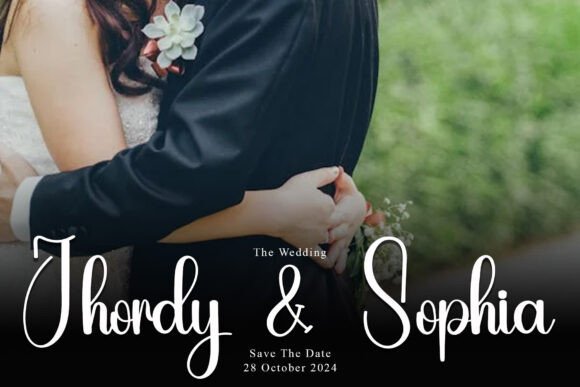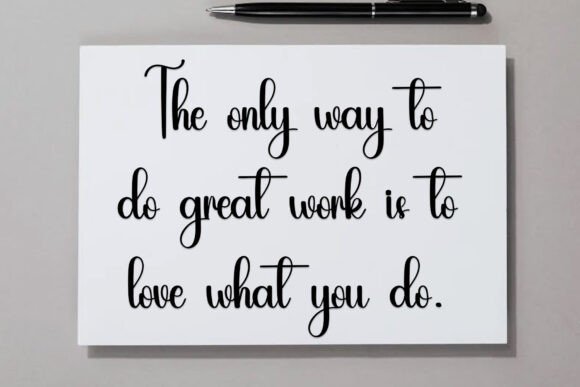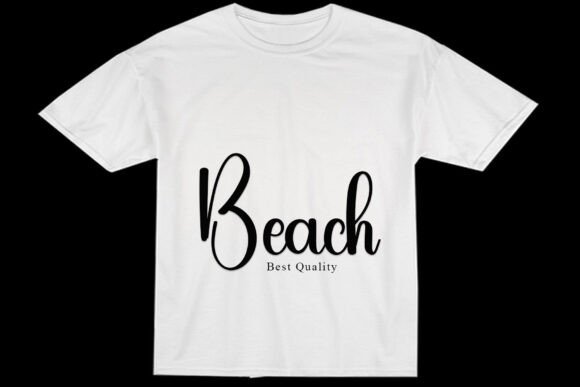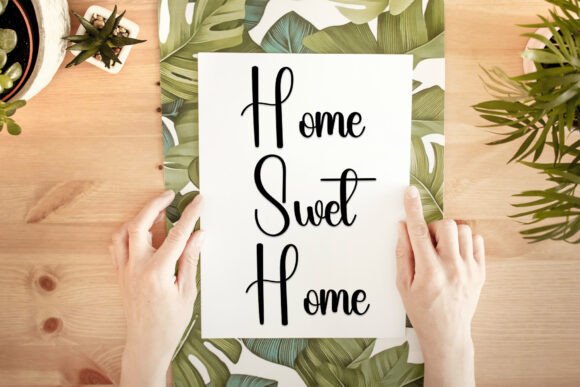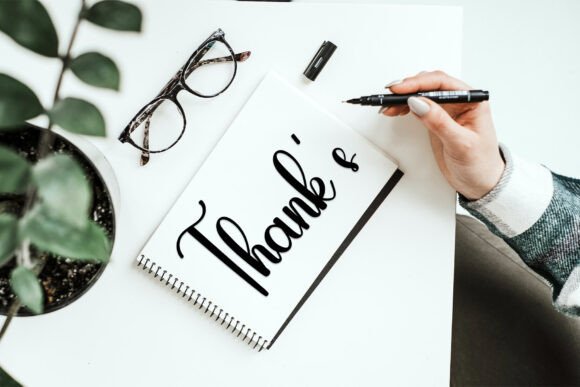
The Magic of Animals Font: A Designer’s Delight
Have you ever been in the middle of a design project, and suddenly, you just can’t seem to find the right font? I recall a particularly frustrating experience when I was working on a whimsical craft project for a client who wanted a elegant, yet playful feel. The design just wasn’t coming together until I stumbled upon the Animals font. It was like a breath of fresh air! The delicate, elegant, and flowing handwritten style was exactly what I needed to bring my design to life.
An Honest Review of Animals Font
So, what makes Animals font so special? Let’s dive into the good stuff and, of course, a few quirks I’ve noticed.
- ✨ Elegant and Refined: The font’s beautiful, well-balanced characters make it perfect for a wide range of designs, from sophisticated branding to whimsical crafts.
- 💫 Versatile: Animals font pairs well with various design styles, making it a great addition to your font library.
⚠️ While Animals font is incredibly versatile, I’ve noticed that it can be a bit finicky when it comes to certain design software. For instance, some programs might not display the font’s OpenType features as intended. But don’t worry, I’ve got you covered with some helpful tips on how to make the most of this stunning font.
The Story Behind Animals Font
While I couldn’t find any information on the exact origins of Animals font, I like to imagine that it was created by a designer who loves animals and wants to bring a touch of whimsy to the world of typography. Perhaps the designer, inspired by the beauty of nature, crafted Animals font to evoke a sense of wonder and playfulness. Whatever the story may be, one thing is certain – Animals font has captured the hearts of designers and crafters alike with its delicate, elegant, and flowing style.
| Font Name | Animals Font |
| Author | NYA Letter |